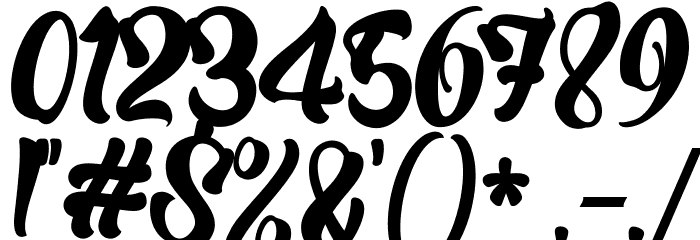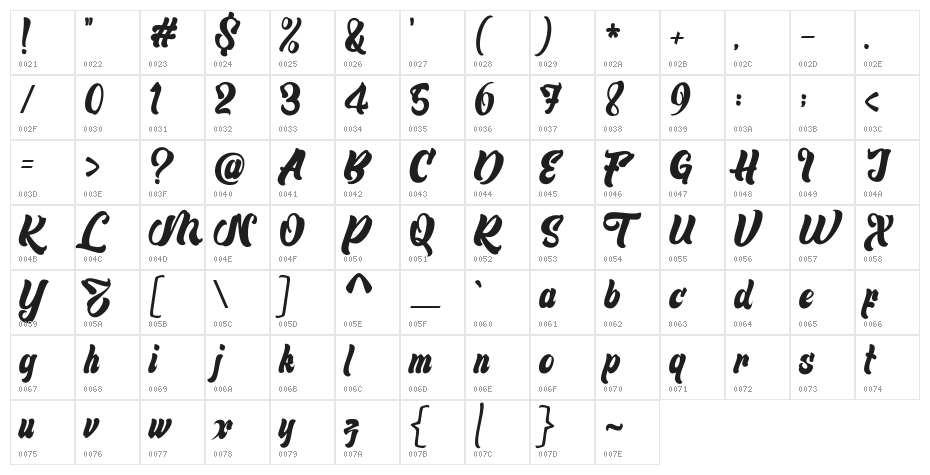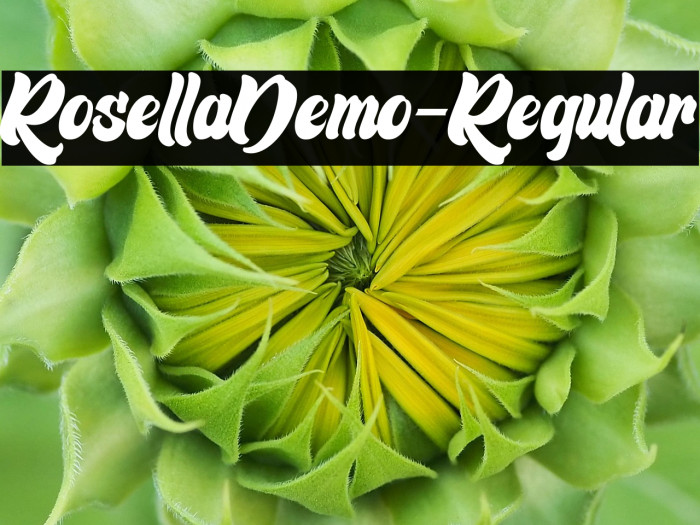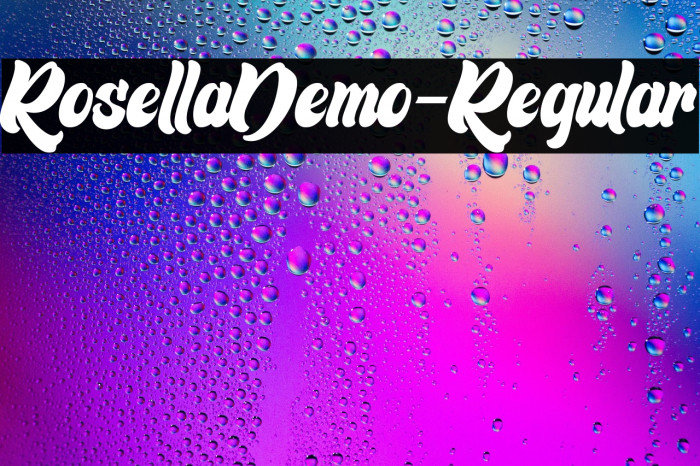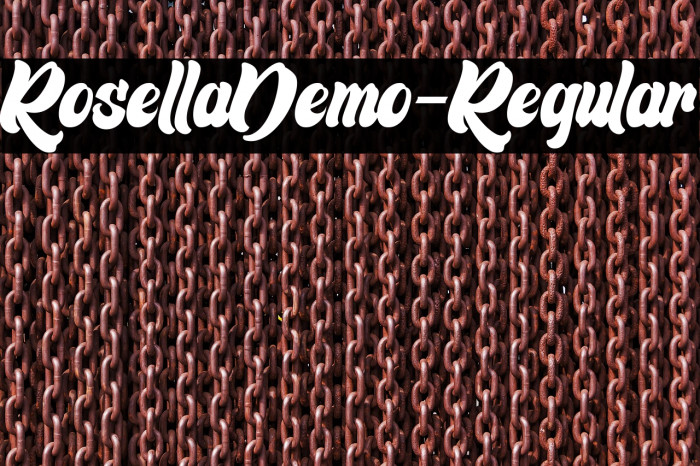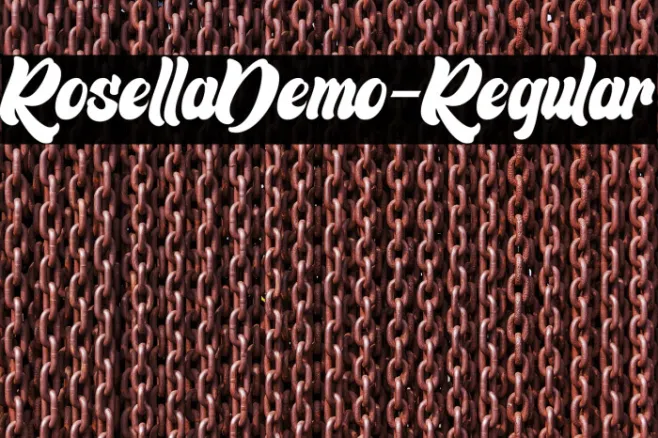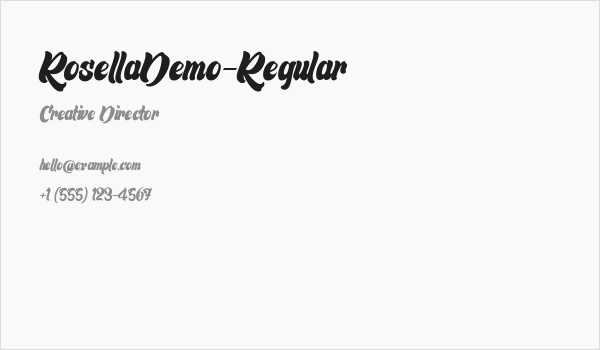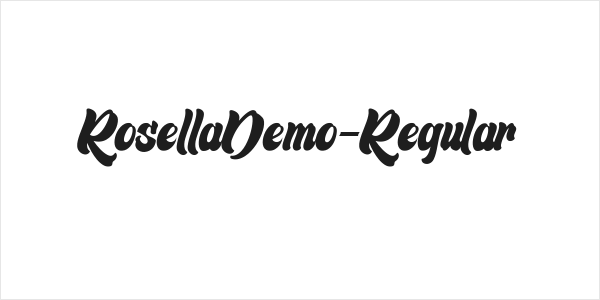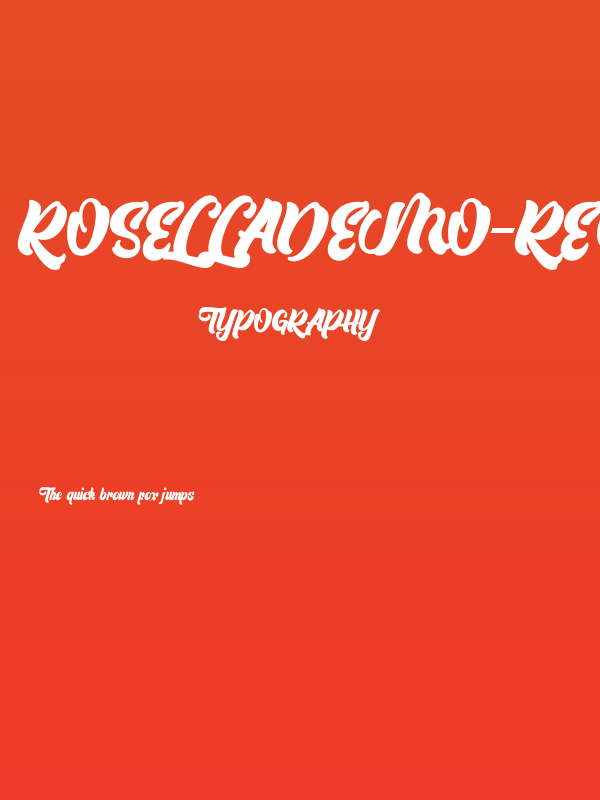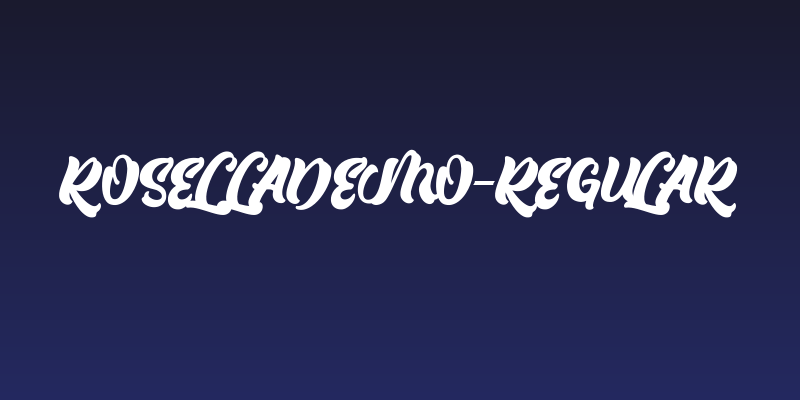
RosellaDemo-Regular Font
RosellaDemo-Regular Description
This font features a bold and expressive script style with a strong presence. The characters are connected, giving it a fluid and dynamic appearance. The uppercase letters are particularly striking, with dramatic curves and flourishes that add a sense of elegance and flair. The lowercase letters maintain a consistent flow, complementing the uppercase with their rounded forms. Numbers and special characters are crafted with the same attention to detail, ensuring a cohesive look across all elements. This font is ideal for projects that require a touch of sophistication and personality.